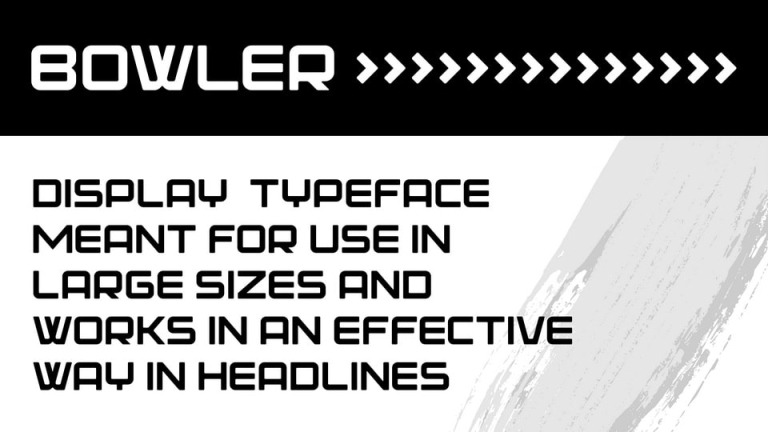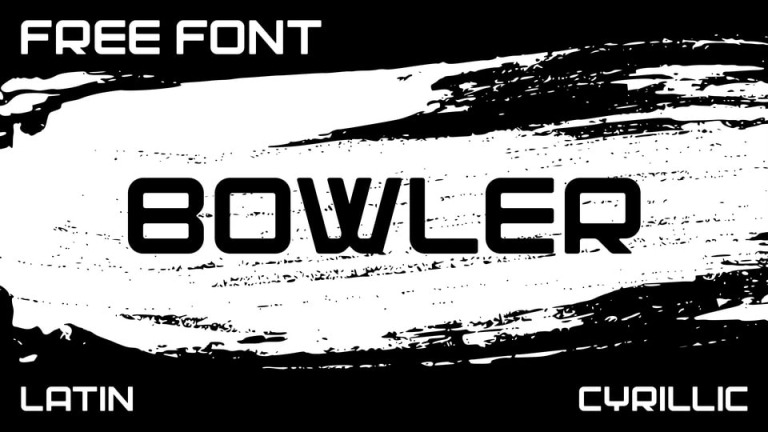
Bowler Display Font is a extra condensed type style. This font perfect for branding projects, logos, social media posts, advertisements, product packaging, wedding invitations, product designs, label, photography, watermark, stationery and so much more.